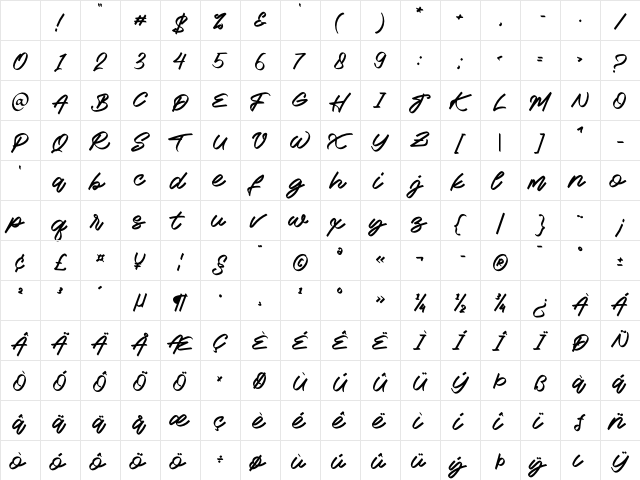
Complete Rafots Signature Regular glyph index. Displaying only characters natively supported by Rafots Signature Regular font.
Rafots Signature is a composed and adaptable typeface that performs quietly and consistently across a wide range of design contexts.